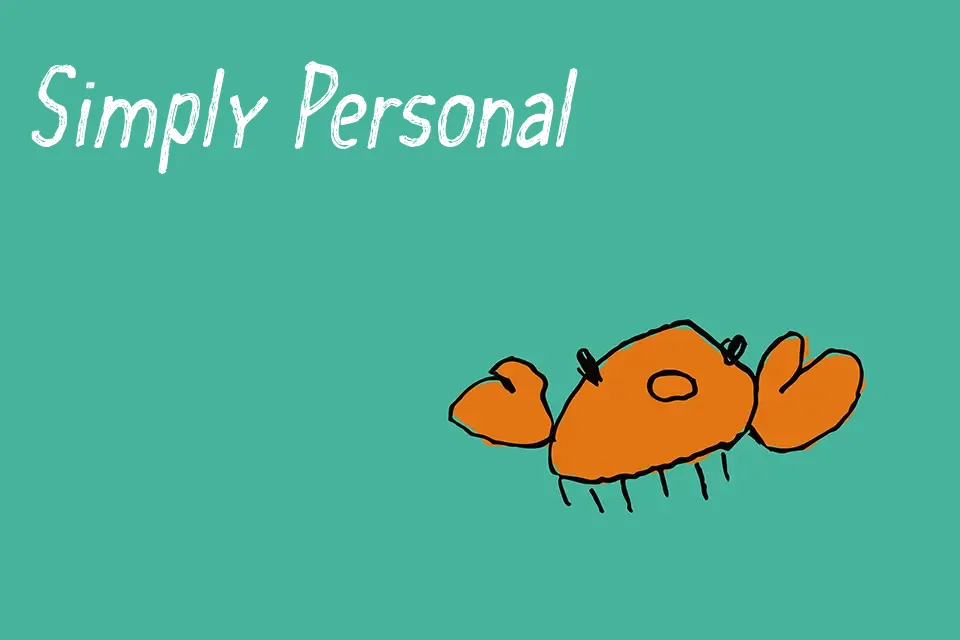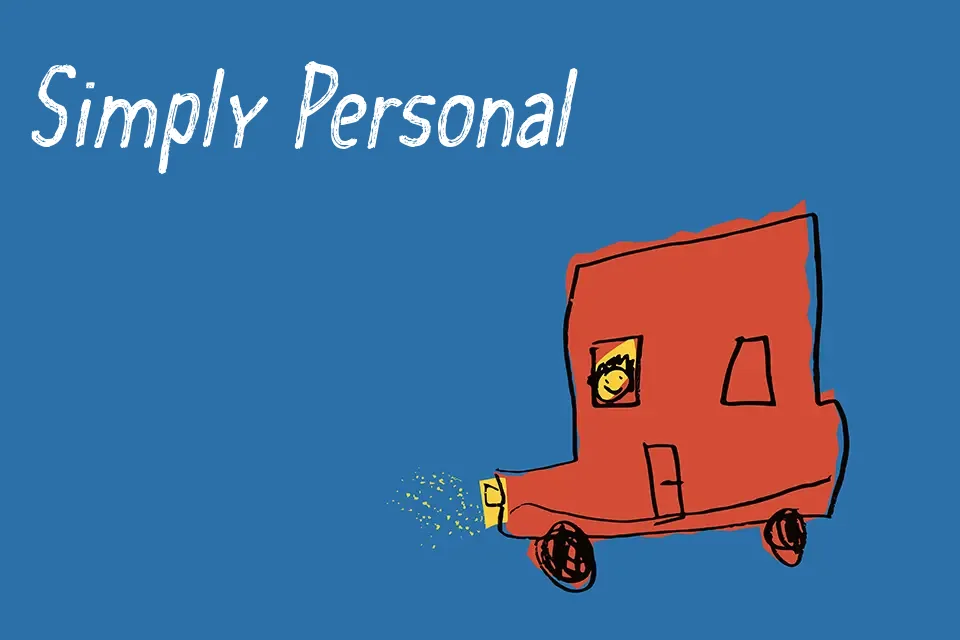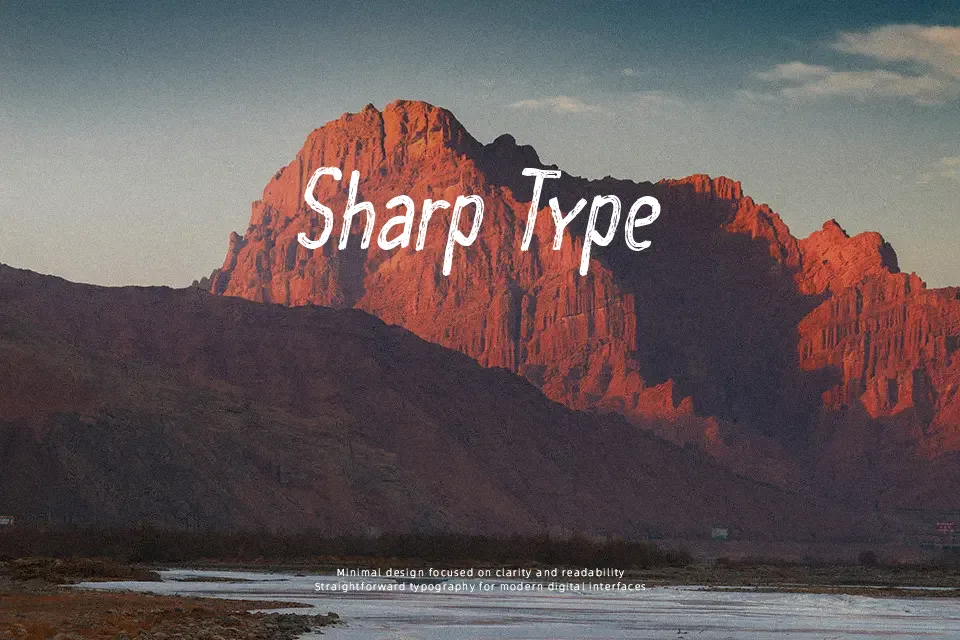
CF School Handwriting Font
Designed by Cloutierfontes
CF School Handwriting Font presents an informal handwritten structure characterized by thin, unrefined strokes and a slight forward slant reminiscent of student penmanship. The letterforms exhibit modest stroke contrast, narrow character widths, and relatively open horizontal spacing that preserves legibility across short phrases. Proportions remain somewhat variable, creating a playful, handmade rhythm across both uppercase and lowercase glyphs. The typeface excels in youth-focused graphic designs, educational printouts, and casual greeting cards where an authentic, friendly tone is desired. However, the delicate strokes and uneven alignment lose clarity when scaled down to small interface labels or dense body text.
– children book covers
– elementary school worksheets
– craft product packaging
– casual event flyers
– dense editorial paragraphs
– legal contract text
– mobile UI interface labels
– formal corporate reports
Perfect for headline, kids, and packaging, with a creative and display style.